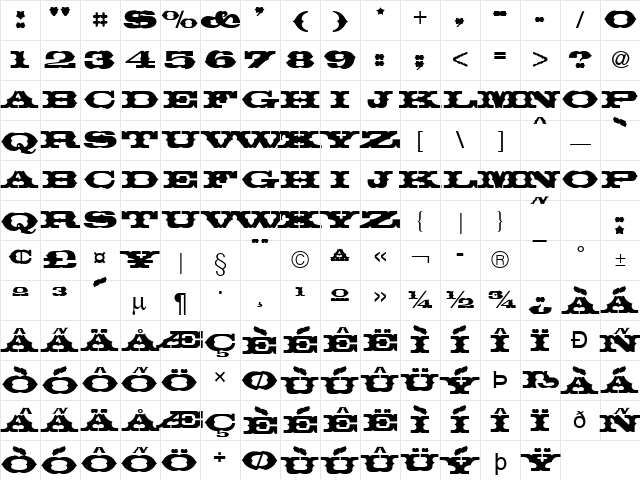
Thunder Row Normal
Design Context for Thunder Row
Thunder Row is a composed and adaptable typeface that performs quietly and consistently across a wide range of design contexts.